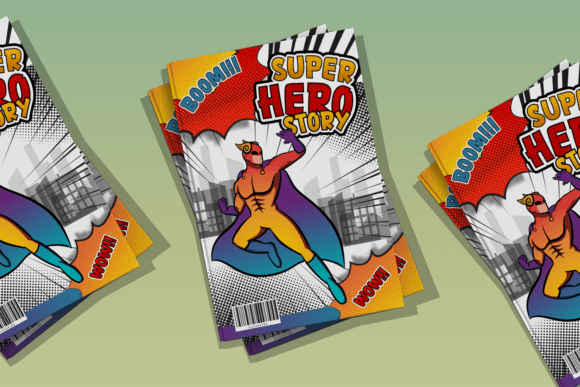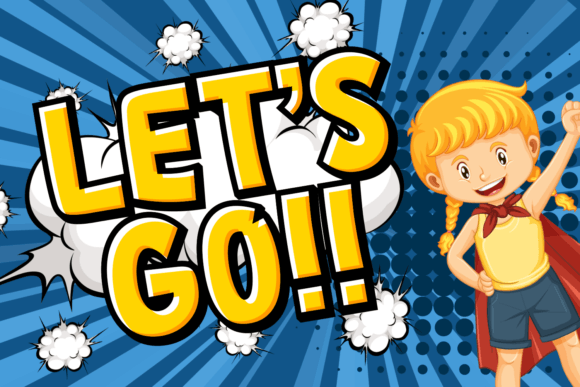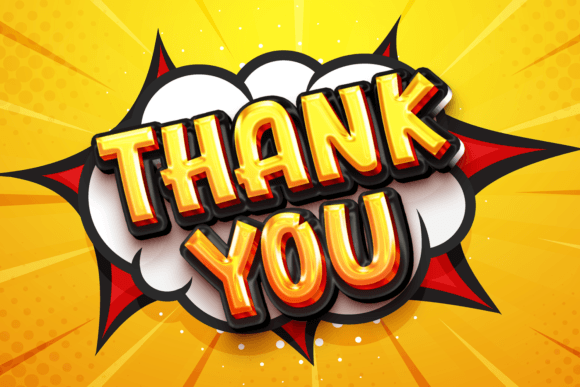
Introduction to Daddy Hero Font
Daddy Hero is a beautiful cartoon-style display font.
Thick and playful, this font has everything you need to create bold and eye-catching typography Add it to your design library now, and use it to bring life to your creative ideas.
Key Features of Daddy Hero Font
Why Choose Daddy Hero Font?
Daddy Hero Font offers exceptional quality and versatility, making it a valuable addition to your design toolkit. Whether you’re creating for personal projects or commercial use, Daddy Hero Font delivers professional results.